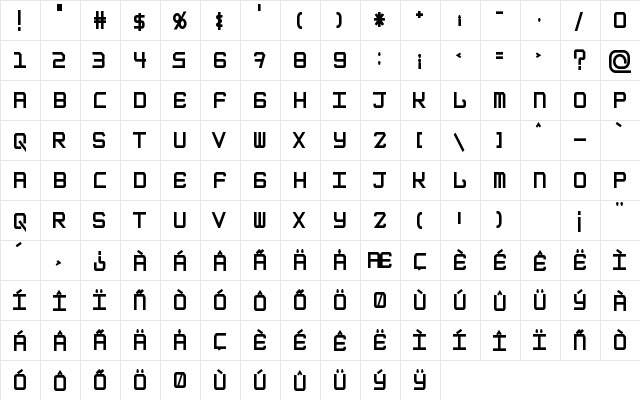
EpicenterBlack Regular
| Foundry | Xerographer Fonts |
| Designer | Max Infeld Xerographer Fonts |
Design Context for EpicenterBlack Typeface
EpicenterBlack takes a measured approach to typography — its balanced proportions and neutral character make it a reliable workhorse for both digital and print work.